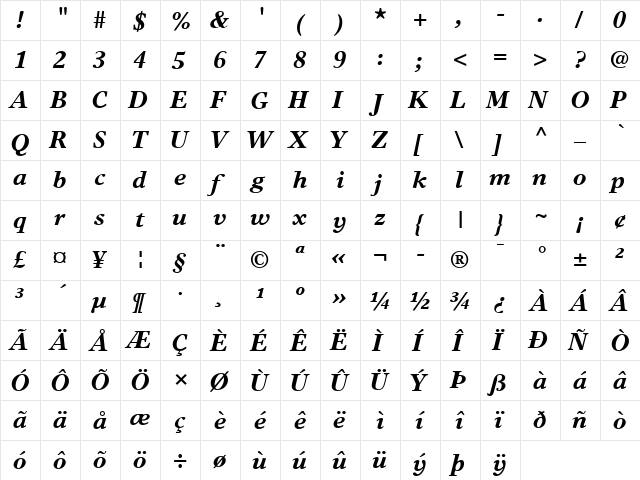
TimesEuropa LT Roman Bold Italic
Design Context for TimesEuropa LT Roman Typeface
TimesEuropa LT Roman is a composed and adaptable typeface that performs quietly and consistently across a wide range of design contexts. The dynamic lean of this cut emphasises speed and emphasis in any layout. Its bold stroke weight gives it real presence on the page.
Pro Tip: Use TimesEuropa LT Roman for emphasis, pull quotes, and subheadings where its slanted energy can add rhythm to the layout.